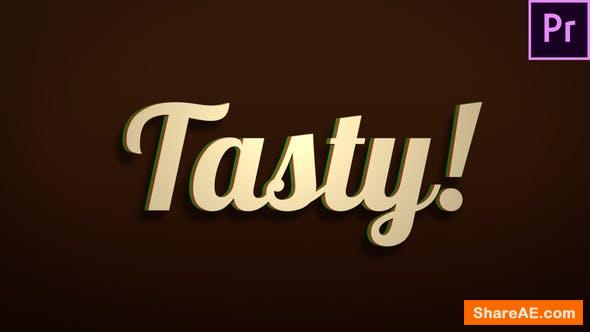
Videohive Cheer - Animated Handwriting Typeface
Cheer is an animated Typeface that can be used in several video projects like Vlogs, Christmas Greetings, Holidays, New Year Wishes, Youtube videos, Invitations, Greeting Cards, Wedding Videos, romantic Openers, Intros and many more.
The letters are animated in a slow pace with 60 frames per seconds, that allows you to change the writing speed from very slow and detailed to fast without any quality loss
Supported are these characters:
- Letters A-Z
- Digits 0-9
- Punctuation and Special Characters as shown in Preview